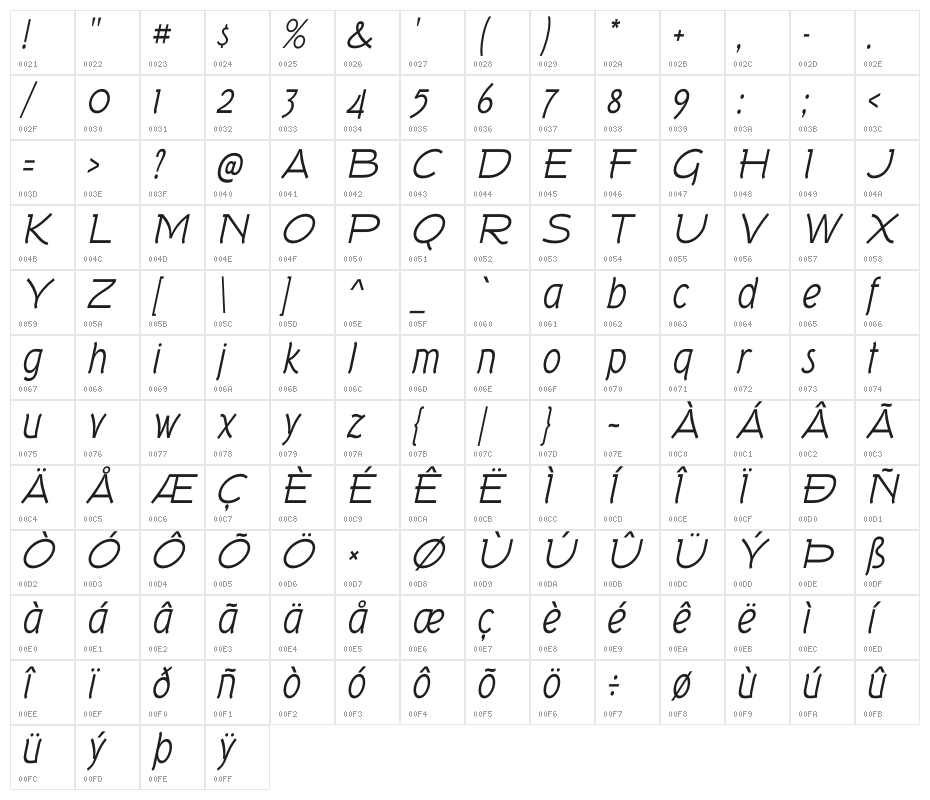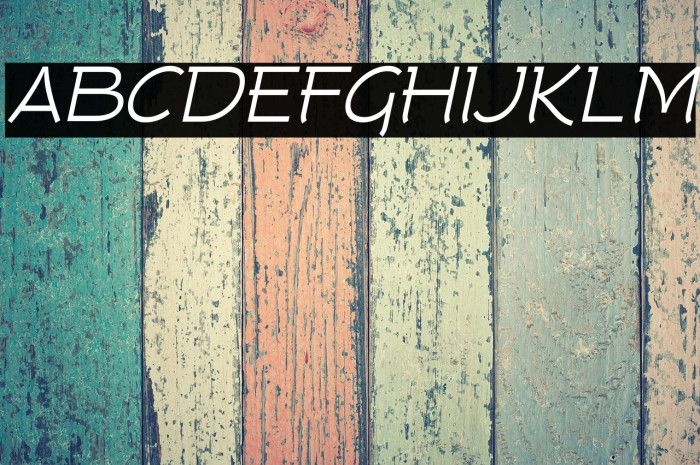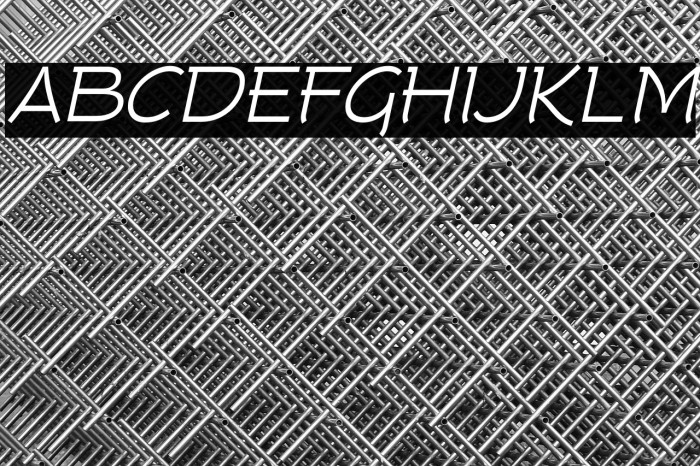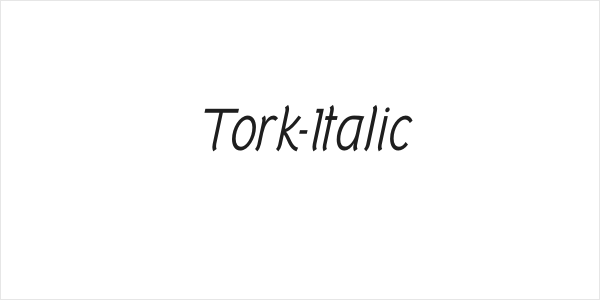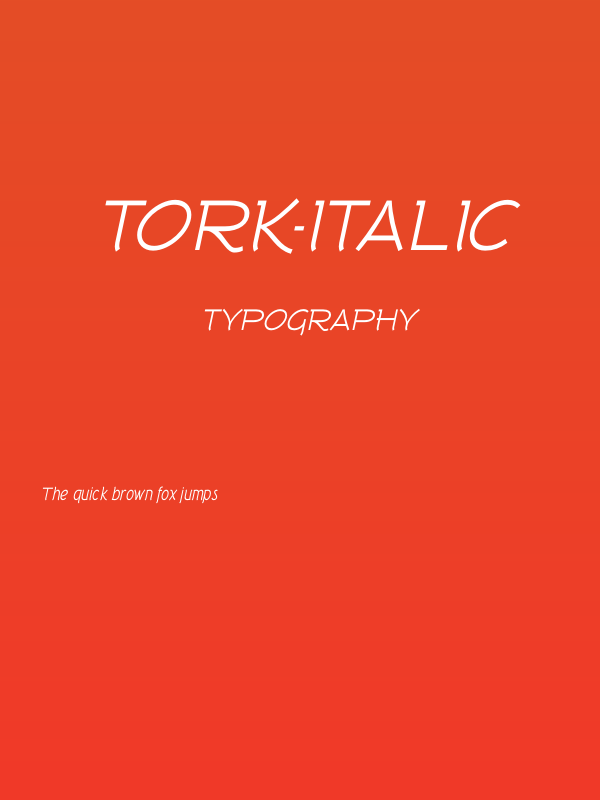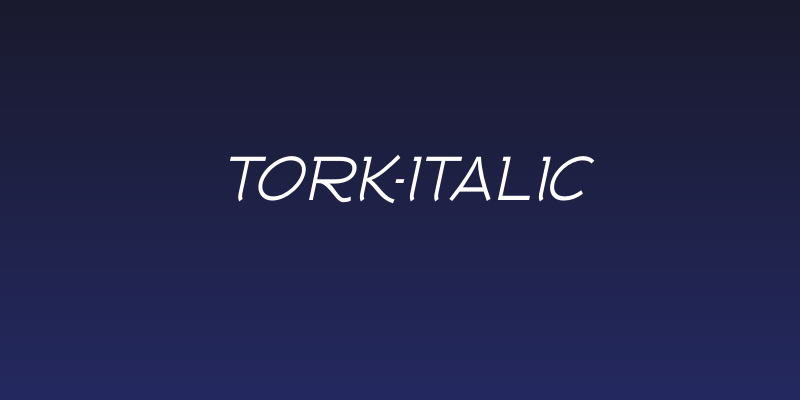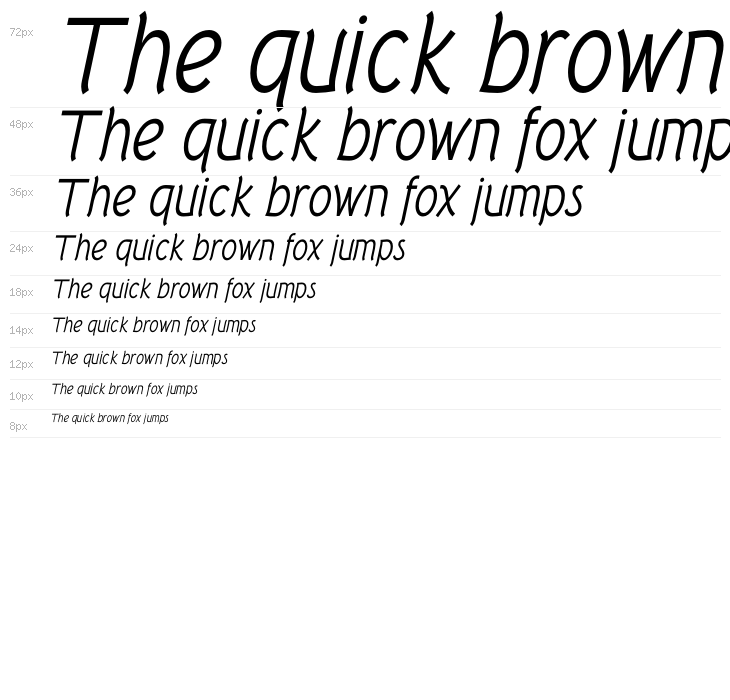
Tork-Italic Font
Tork-Italic Description
This font exhibits a dynamic and fluid style, characterized by its italicized form which gives it a sense of motion and elegance. The strokes are smooth and slightly slanted, adding a touch of sophistication. The uppercase letters are tall and slender, while the lowercase letters maintain a consistent flow, enhancing readability. The numerals are well-proportioned, and the special characters are distinct, making this font versatile for various applications. The overall design is modern yet retains a classic appeal, suitable for both digital and print media.
| Proposed Projects | Ideal for branding, editorial design, and elegant invitations. |